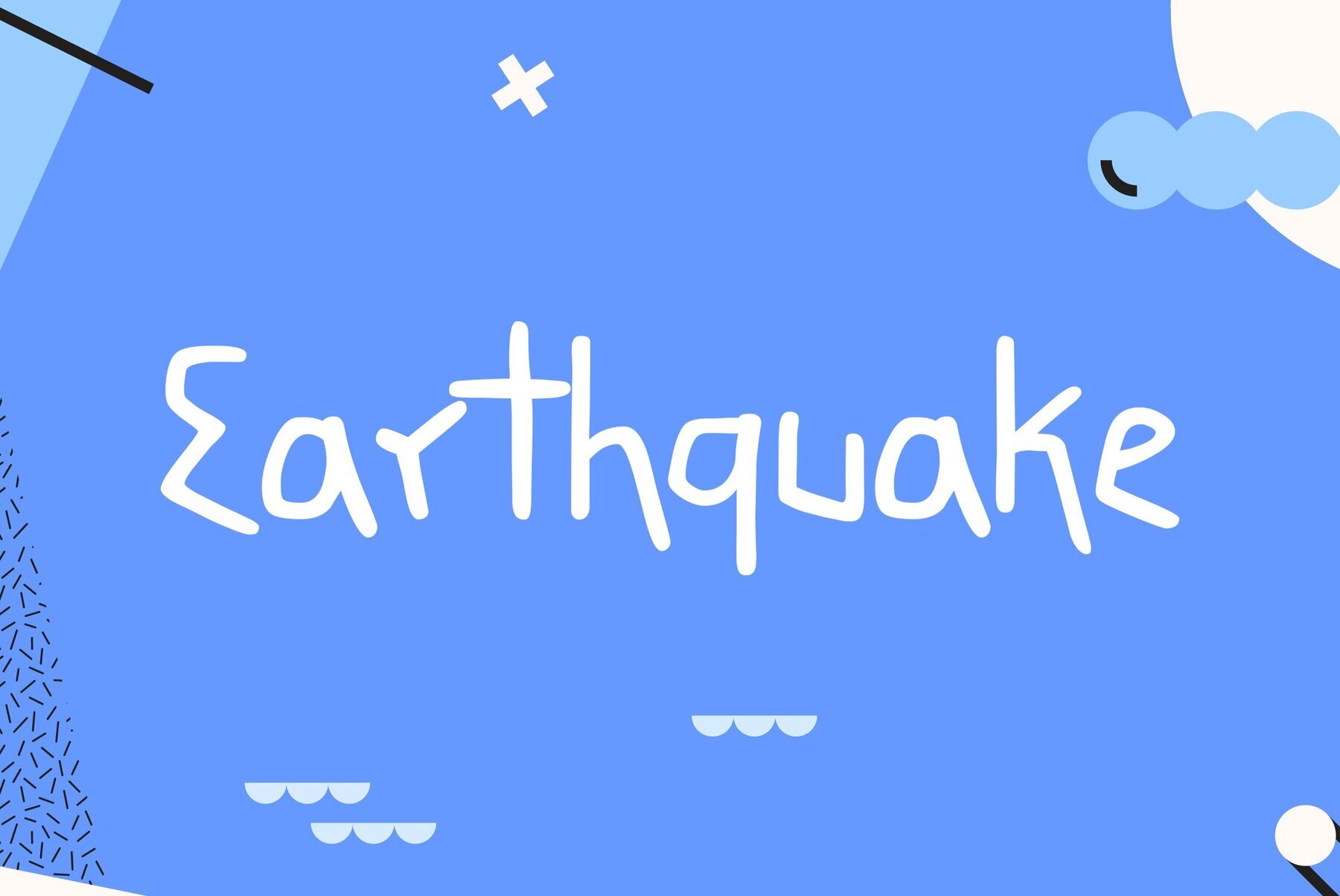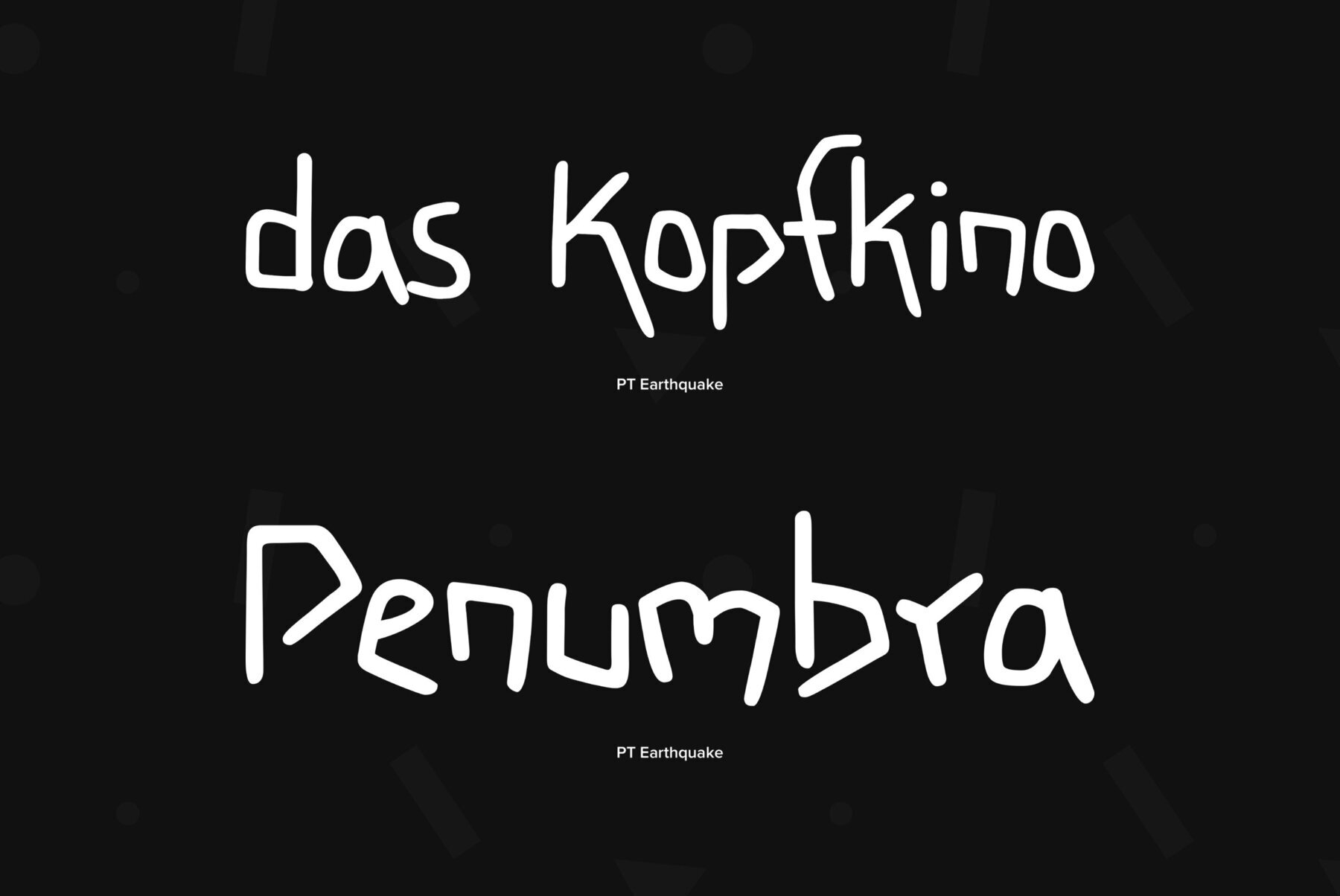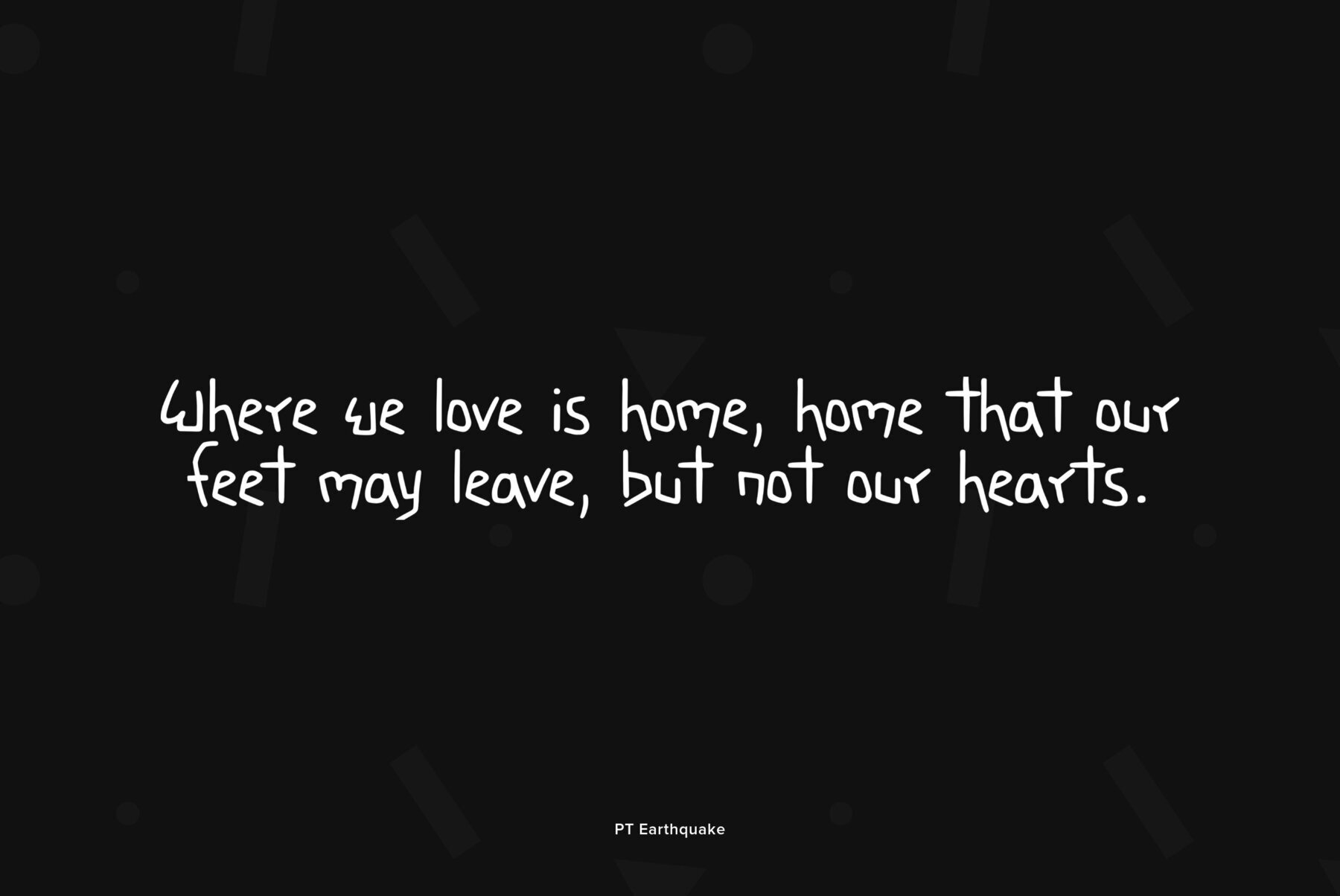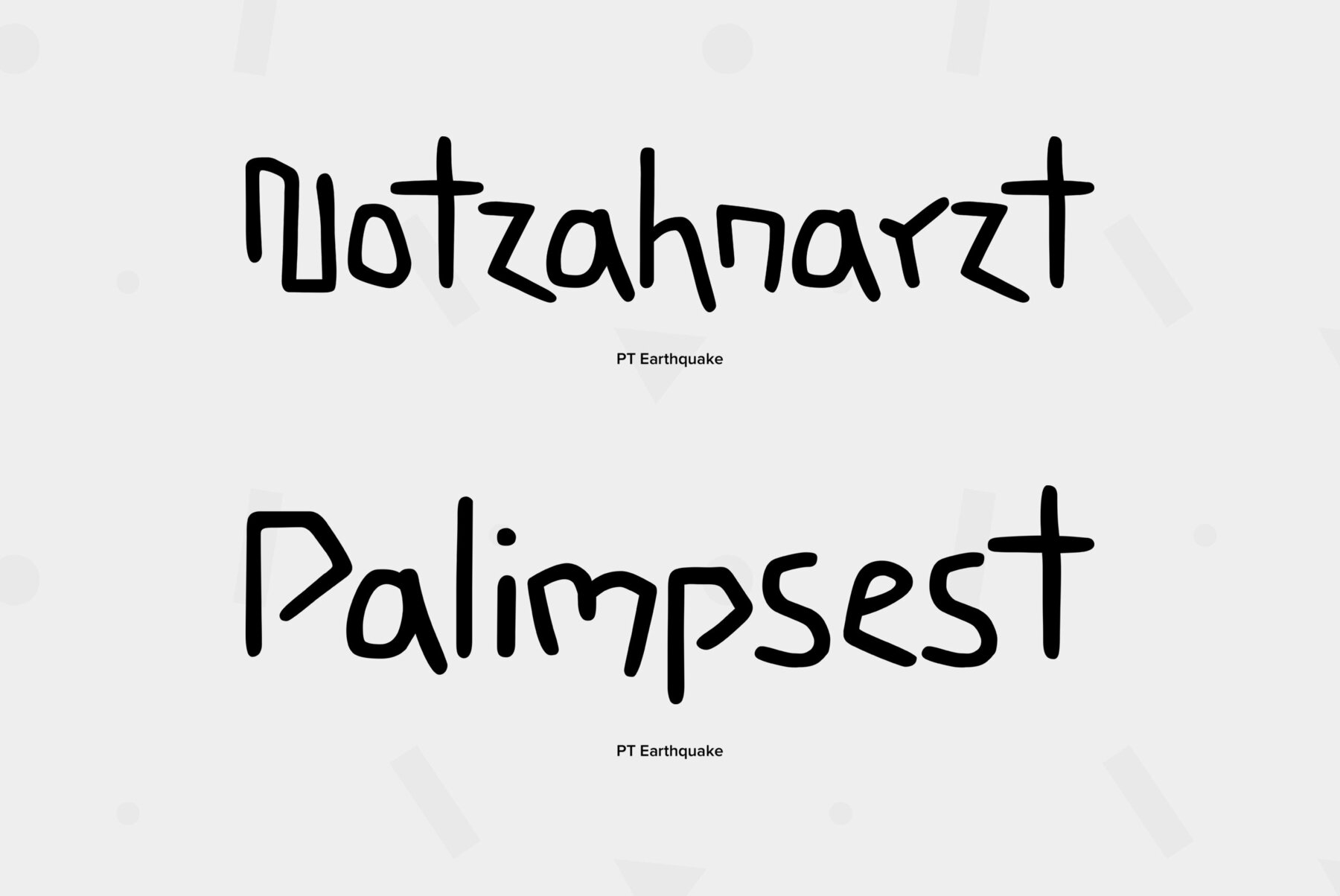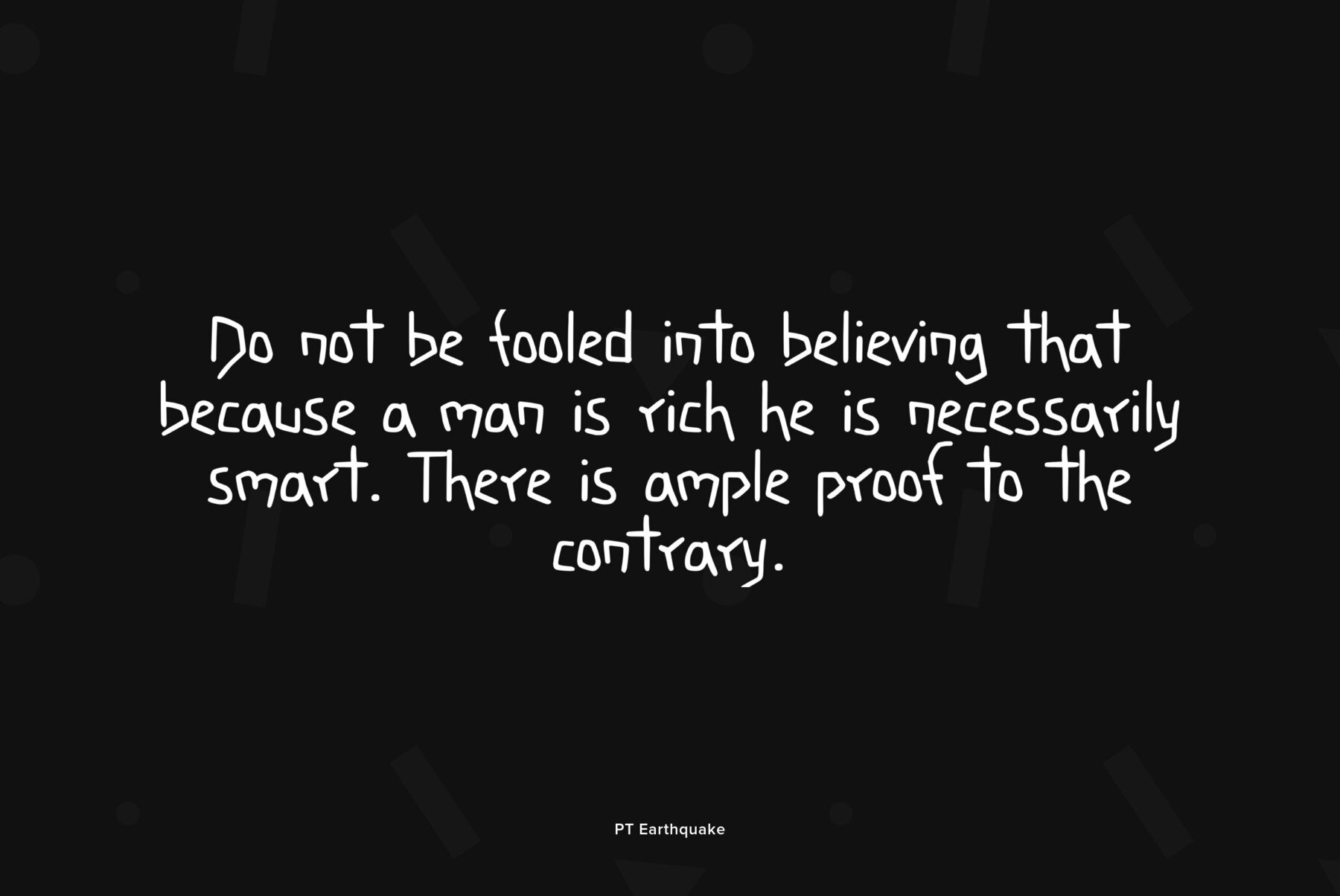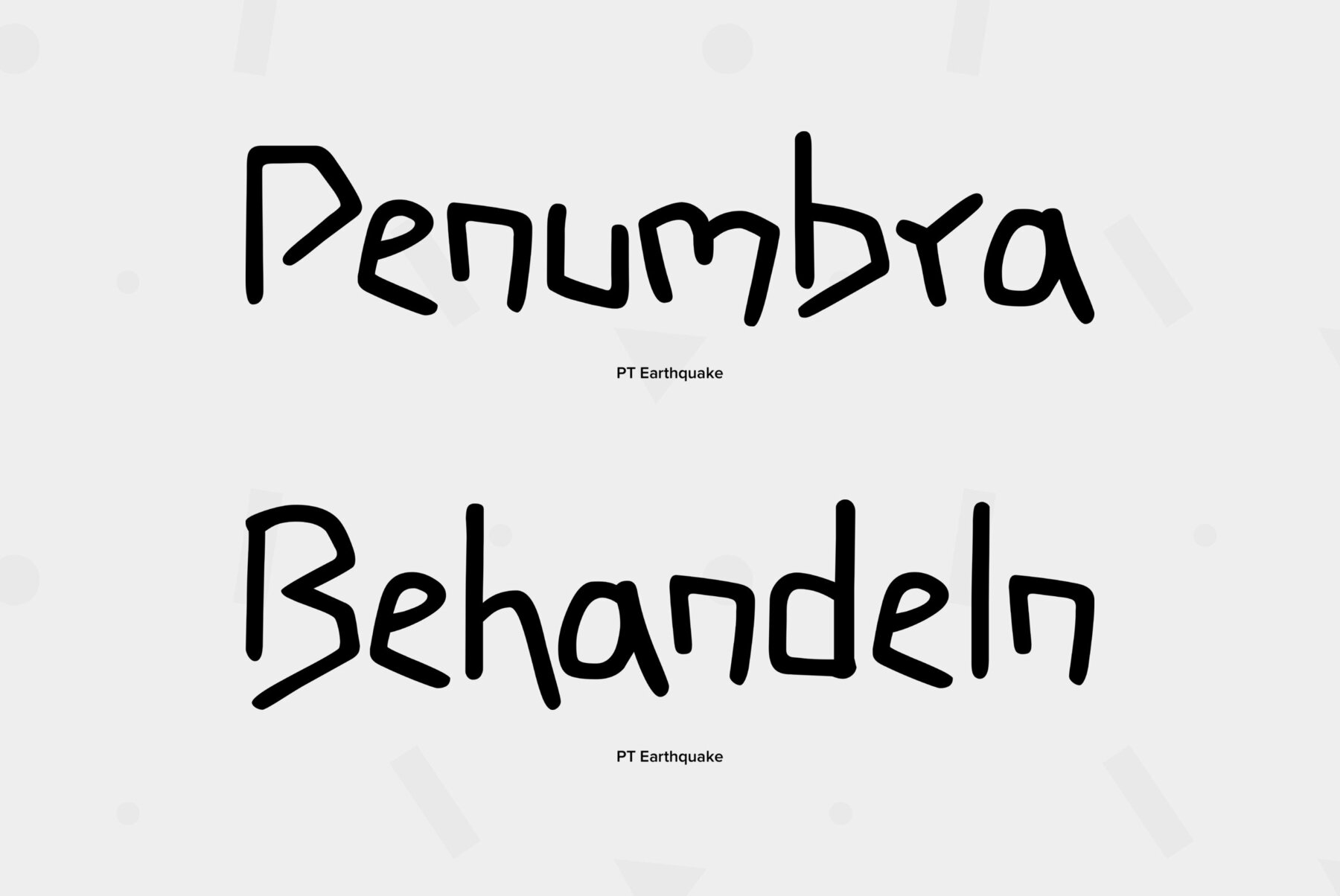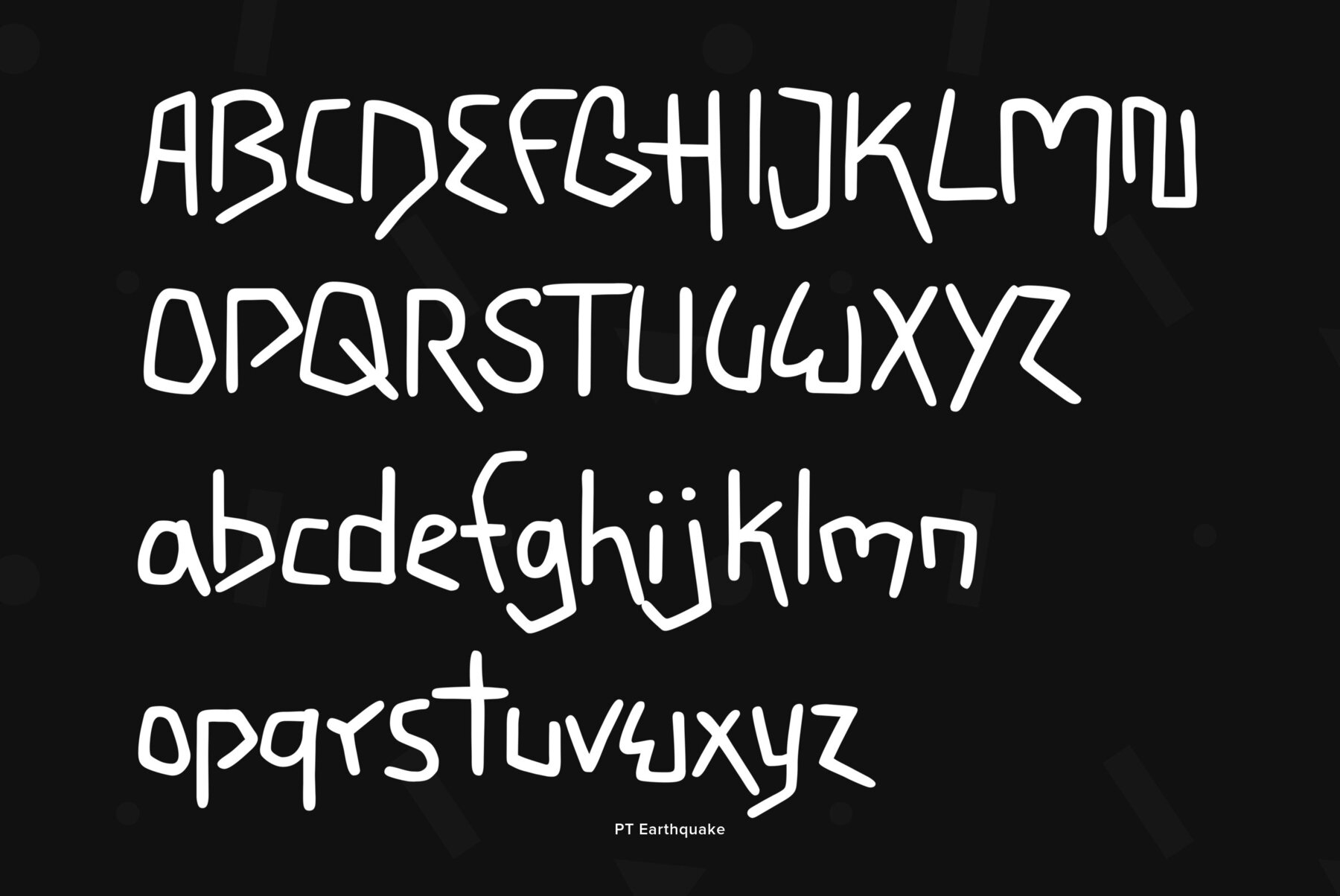
PT Earthquake
Earthquake font was developed for the series of handwriting fonts based on the writing samples of real people. The font delivers natural sincere touch and can magically convert any stupid advertizing text into intimate advice of your good friend. The whole series of 12 informal script fonts available under the name ParaType Handwritten Set. Cyrillic version was developed by Gennady Fridman in 2009.